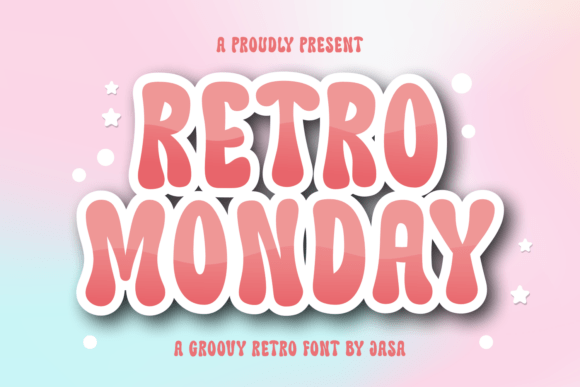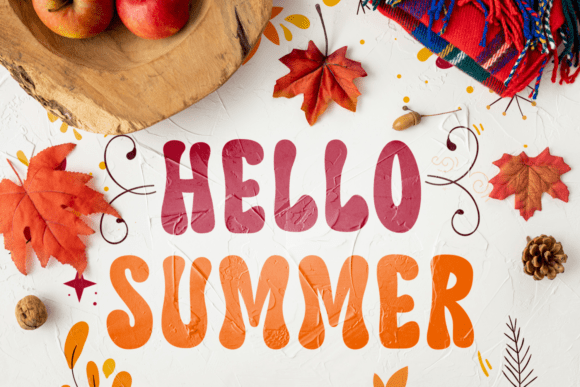
Retro Monday Font
Retro Monday is a bold and bubbly font full of nostalgic charm. Inspired by 70s groovy vibes, this typeface features curvy, playful letterforms that bring a fun and cheerful mood to any design. Perfect for retro posters, t-shirt designs, branding, social media graphics, and more—Retro Monday adds a funky twist to your creative projects.